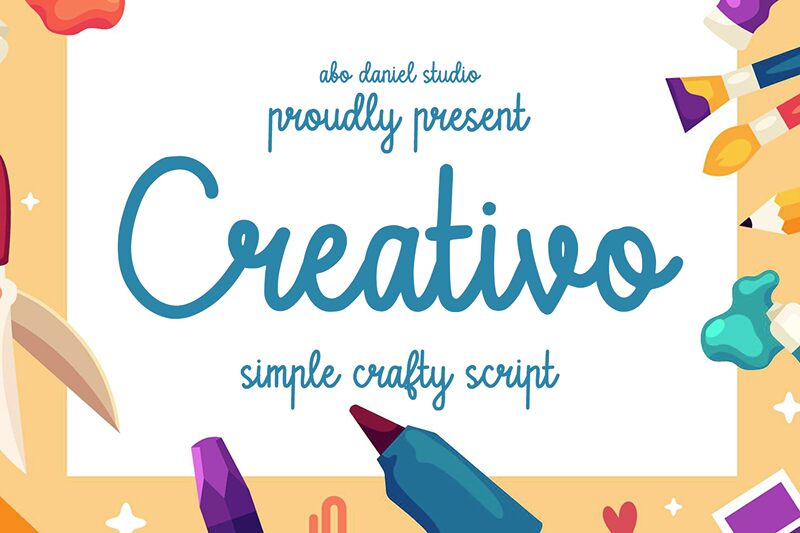
Creativo italic Italic
Creativo Italic is a light, school-style script font designed by Abo Daniel. It's perfect for giving your projects a unique, creative touch. This versatile font is suitable for invitations, logos, business cards and more!